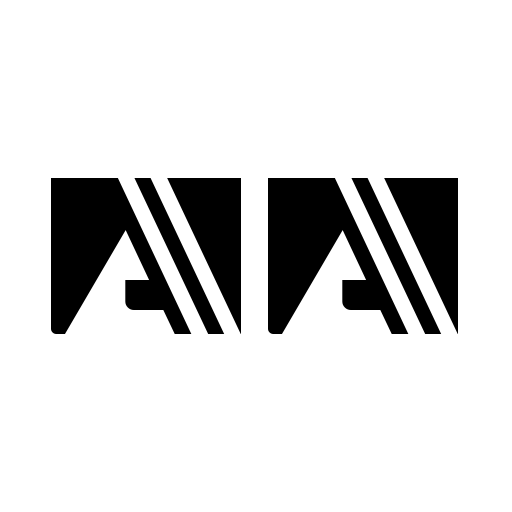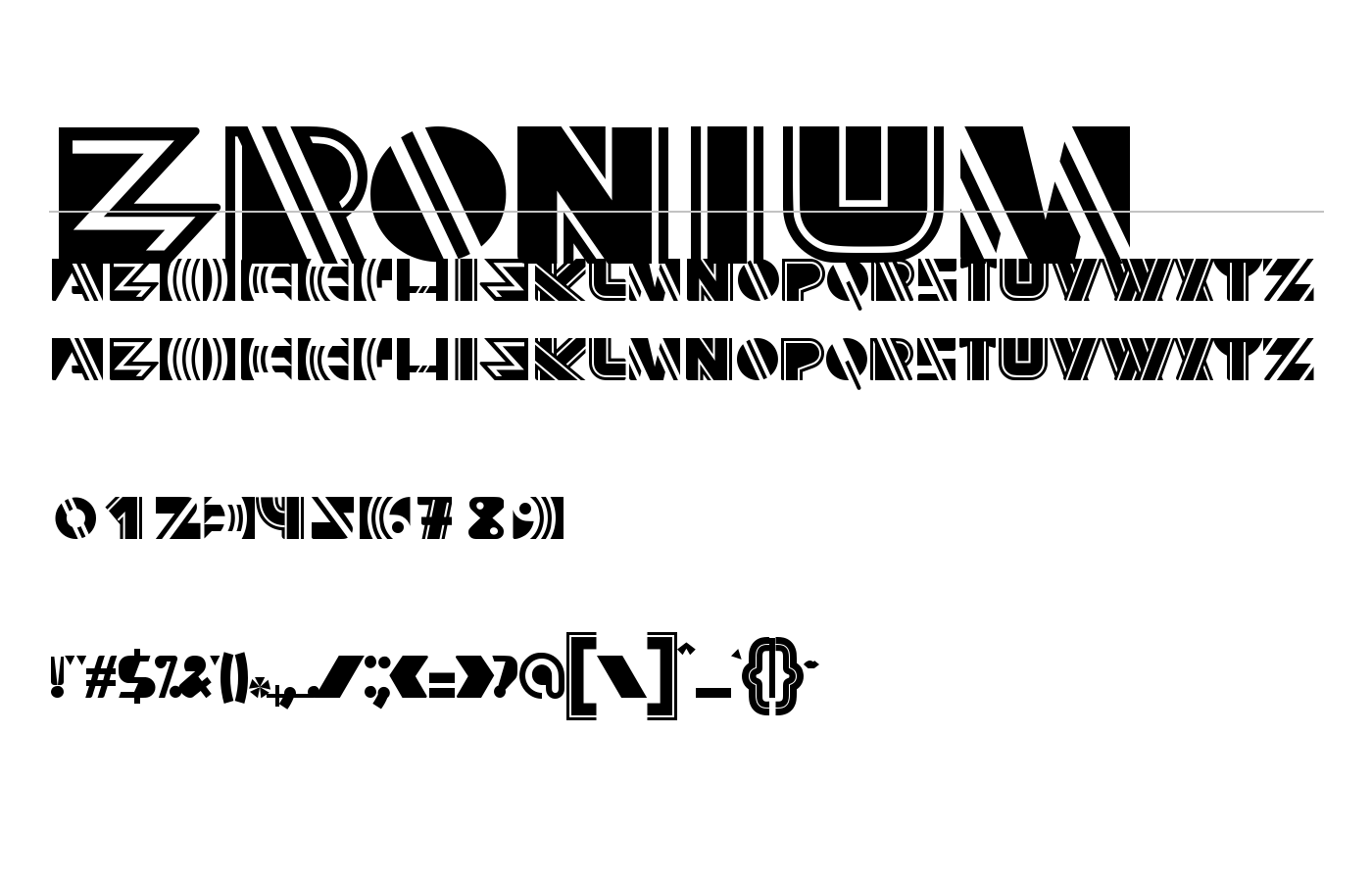
Bronium is a bold, geometric sans serif font characterized by strong vertical and diagonal lines with striking cut-out patterns, creating a futuristic and modern look. Its high contrast and unique segmented letterforms make it ideal for eye-catching headlines, logos, and branding that aim to convey innovation and boldness. This font works best in display uses where its artistic and edgy style can stand out and grab attention.
Bronium Font
About Bronium Font